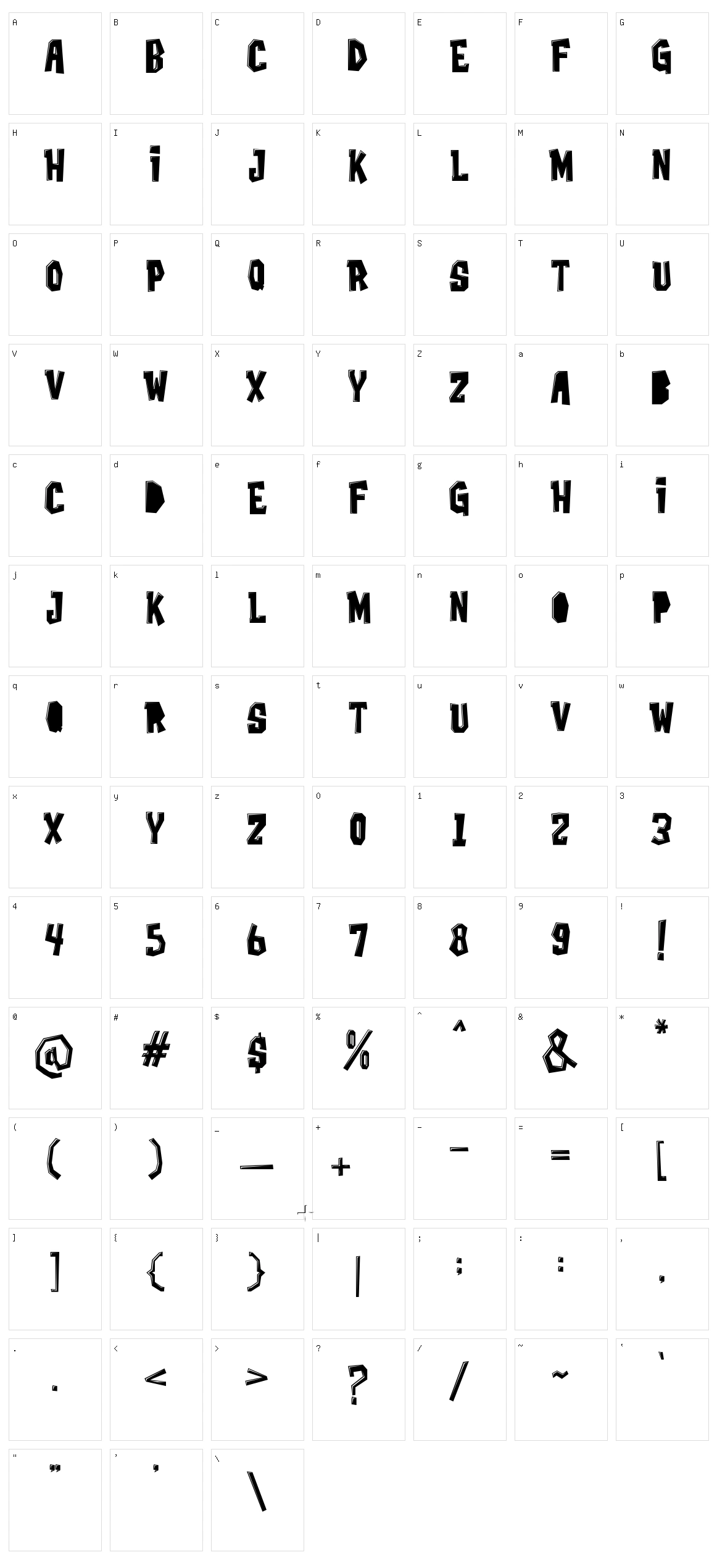
The free font Rockidz is carefully designed by Figuree Studio, showcasing a thoughtful balance of creativity and usability and falls under the Cartoon font style. When you download the ZIP file, it contains only 16.14 KB of font files, making it lightweight and quick to download. Please review the license details below to understand permitted usage and distribution rights. If license information is not available, we recommend using this font for personal projects only or contacting the author directly for commercial usage permissions.